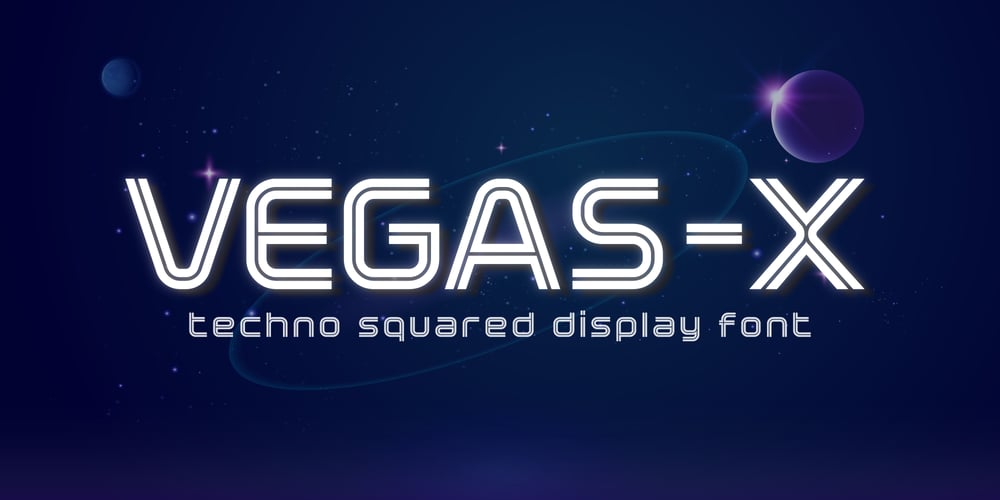
Vegas x
Vegas x font
Vegas x Font Family was designed by Faldy Kudo and published by XdCreative. Vegas x contains 2 styles and family package options. Vegas-X is a futuristic squared display font. This font is inspired by films, books, science and space technology, composed of a squared shape with smooth curves that gives a modern and futuristic impression.Vegas-X It is perfect for display, logo, icon and it will look stunning on any poster flyer or print.Use this font for your designs and explore its endless possibilities.Thank you_xd